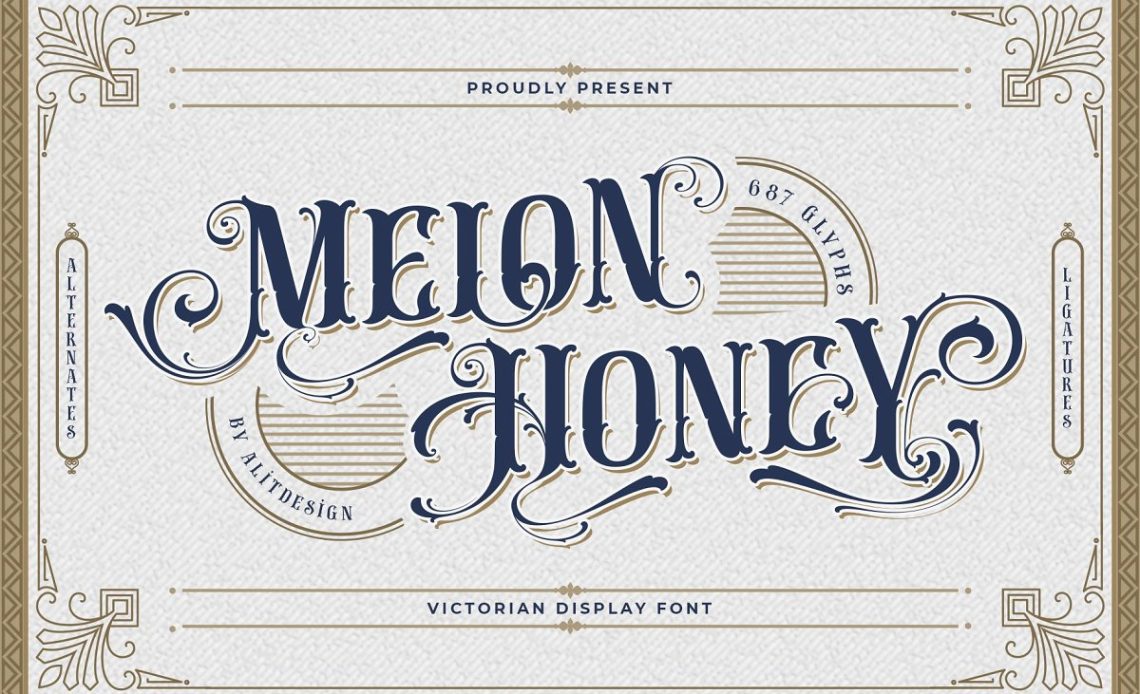
Introducing the Melon Honey Typeface - the perfect font for anyone looking to add a touch of vintage Victorian style to their design projects. Created by the talented Alit Suarnegara, this font family is part of the Brave Bundle Fonts, a collection of unique and creative fonts that are sure to make any project stand out.
With its blackletter font family and western-inspired style, the Melon Honey Typeface is a bold and eye-catching addition to any design. It's the ideal choice for those looking to create a classic and timeless feel, especially when designing for alcoholic beverage packaging, pomade designs, barbershops, and more.
One of the best things about the Melon Honey Typeface is its ease of use. With all alternates and glyphs supported by Unicode (PUA), this font is compatible with both design and non-design programs. Plus, the package comes with a variety of files, including OpenType-PS OTF, OpenType-TT TTF, Web-TT WOFF2, and a helpful PDF guide.
To take your design to the next level, you can also use the beautiful swashes included with the font. Simply make sure your program supports OpenType features like Adobe Illustrator CS, Adobe Photoshop CC, Adobe Indesign, or Corel Draw. If you don't have a Glyphs panel, don't worry - additional swashes font files are also available for download.
In conclusion, if you're looking for a font that combines classic Victorian style with western-inspired design, the Melon Honey Typeface is the perfect choice. Easy to use and packed with features, this font is sure to make your project stand out and leave a lasting impression on your audience.